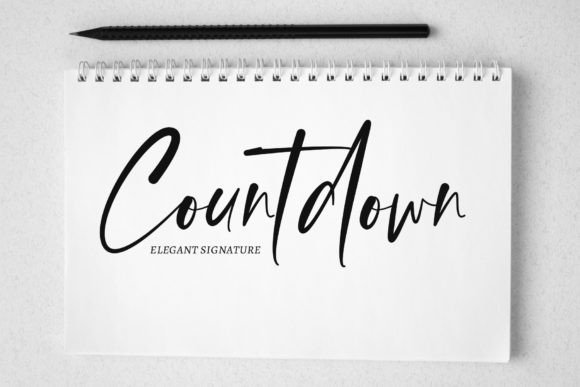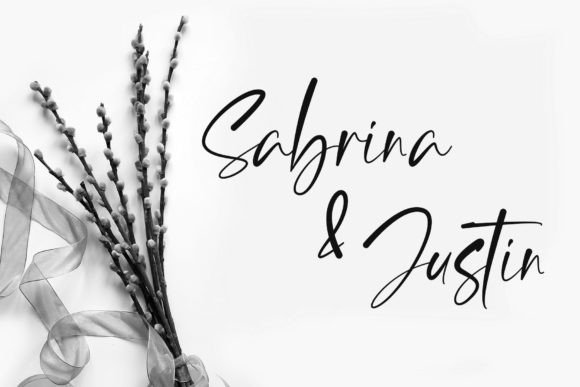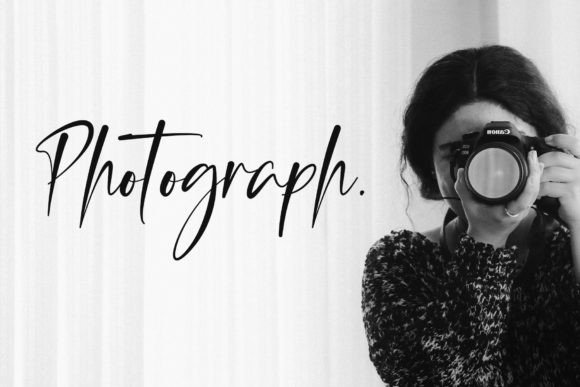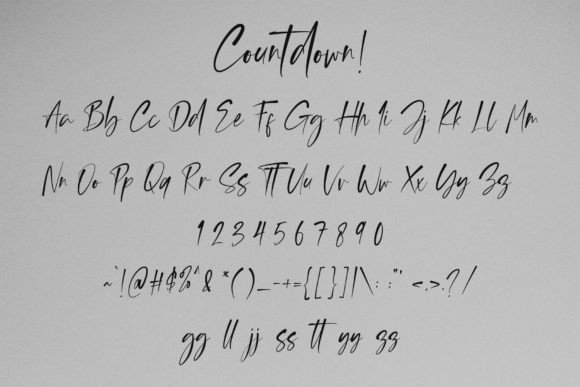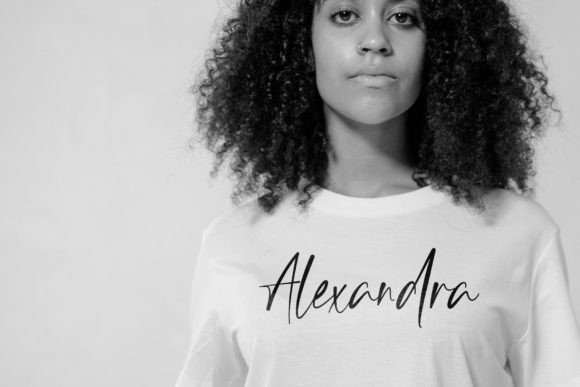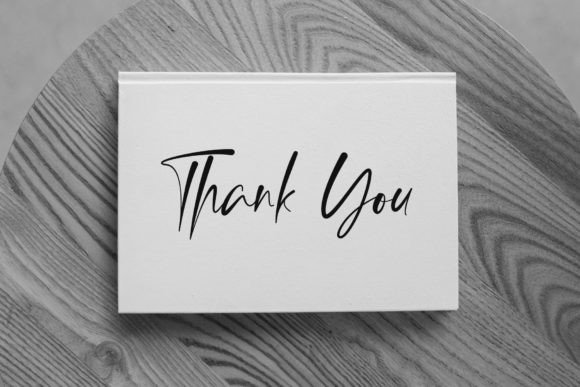
Countdown Font
About Countdown Font
“Countdown” is an elegant signature script font that brings a luxurious and stunning style to your work. This font is designed to add a touch of class and sophistication to your creative projects. It is particularly well-suited for various applications, including photography, invitations, quotes, t-shirts, advertising, product design, labels, and more.
The elegance of “Countdown” is reflected in its signature script style, which exudes a sense of refinement and sophistication. The luxurious touch of this font makes it a great choice for projects where you want to convey a high-end and stylish aesthetic.
Imagine “Countdown” enhancing a photography portfolio, where its elegant script complements the visual elegance of the images. Picture it on invitations for upscale events, adding a touch of class to the event details. Envision this font used on product labels or advertising materials, creating a luxurious and memorable impression.
The versatility of “Countdown” extends to its applicability in diverse design contexts. Whether you’re working on personal projects or commercial branding, this font invites you to incorporate its elegance into your designs.
Let “Countdown” be the key element that elevates your work, making it visually stunning and classy. Whether you’re a graphic designer aiming for a luxurious look or an individual seeking an elegant typeface for special projects, “Countdown” is ready to add a touch of sophistication to your creative endeavors.